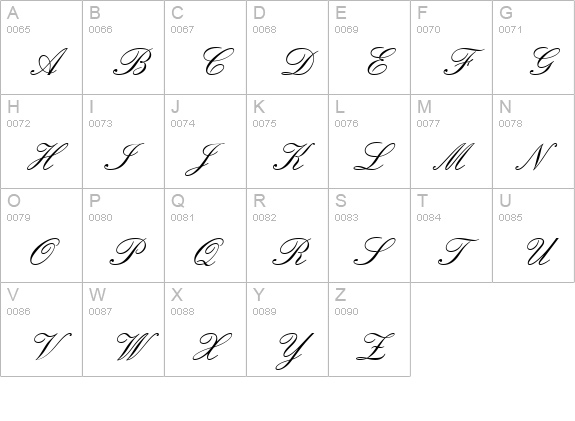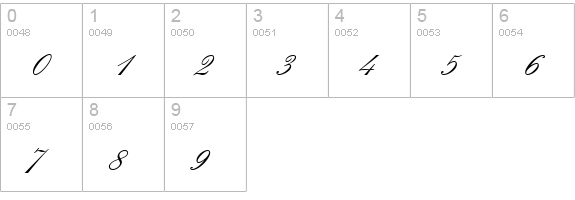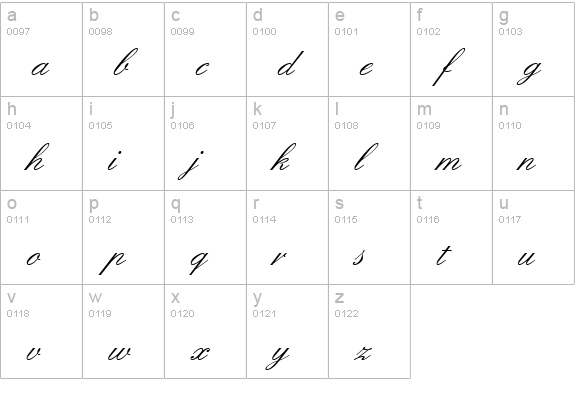
EnglischeSchT font is a stunning display typeface that exudes elegance and sophistication. Its stylish letterforms and intricate details make it perfect for adding a touch of class to any design project. The font's unique design captures a sense of timeless beauty while also remaining versatile enough to be used in a variety of contexts. What sets EnglischeSchT font apart is not just its exquisite design, but also the fact that it is available for free download at FontsMarket.com. This means that you can easily access this premium font without any cost, making it a fantastic choice for designers looking to elevate their work without breaking the bank. With EnglischeSchT font, you can create captivating typography that will leave a lasting impression on your audience. Whether you're working on a branding project, a website design, or any other creative endeavor, this font is sure to elevate your work to the next level. Download EnglischeSchT font today and experience the beauty and versatility of this stunning typeface for yourself.